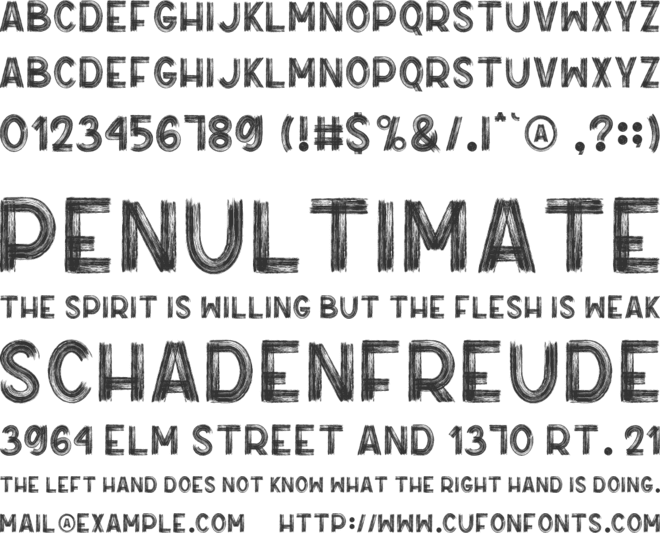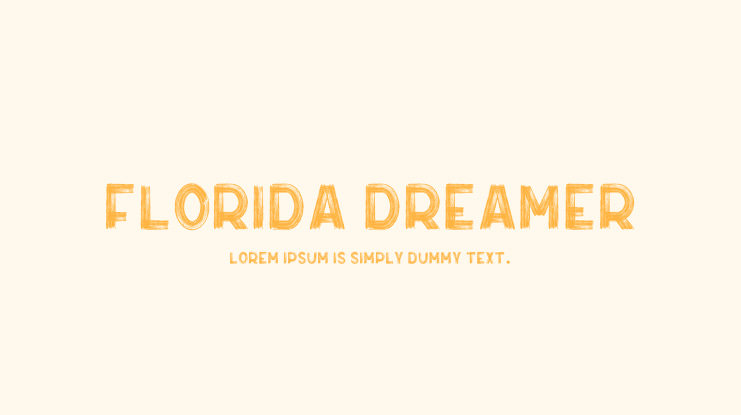
Florida Dreamer Font
The Florida Dreamer Brush Font captures the essence of coastal vibes and creative energy. Its fluid, hand-drawn strokes mimic the carefree brush of waves on golden shores, exuding a sense of warmth and wanderlust. Perfect for designs that aim to evoke adventure, relaxation, or artistic flair, this font effortlessly blends boldness with a breezy charm. Whether you’re crafting tropical-inspired branding, lively invitations, or eye-catching posters, Florida Dreamer sets the tone for free-spirited elegance.